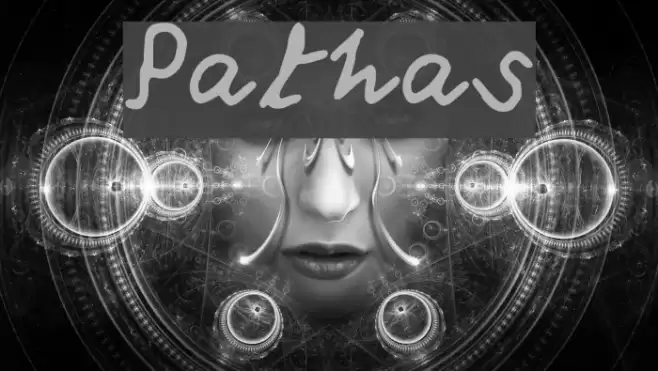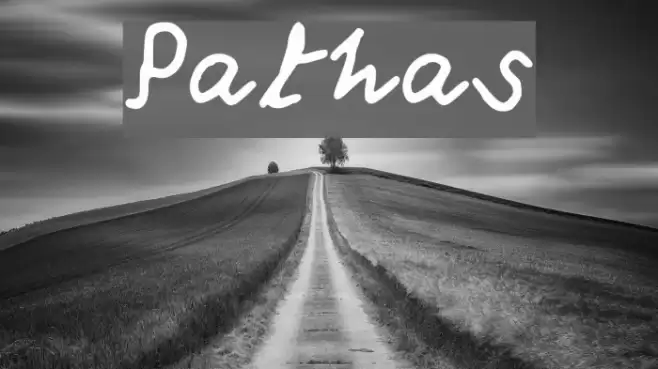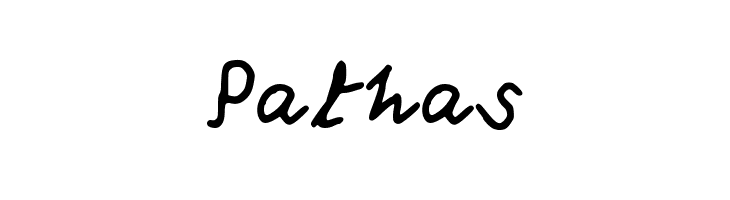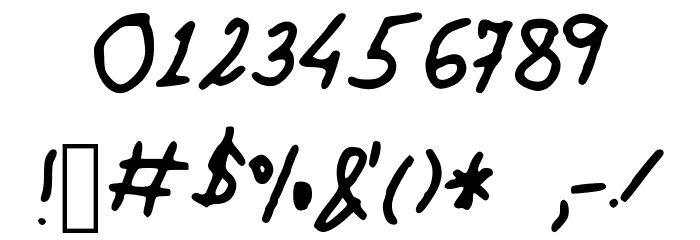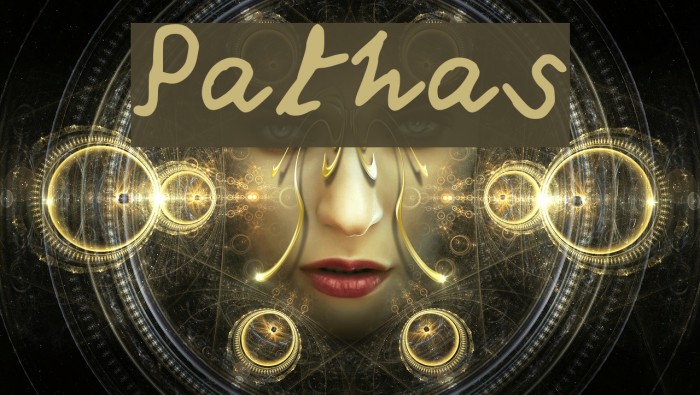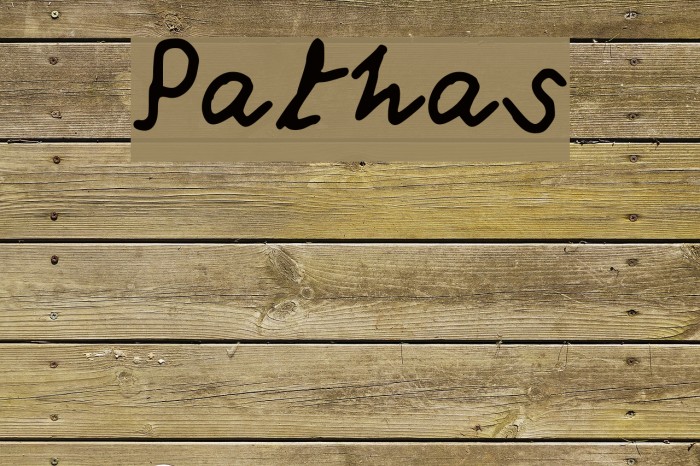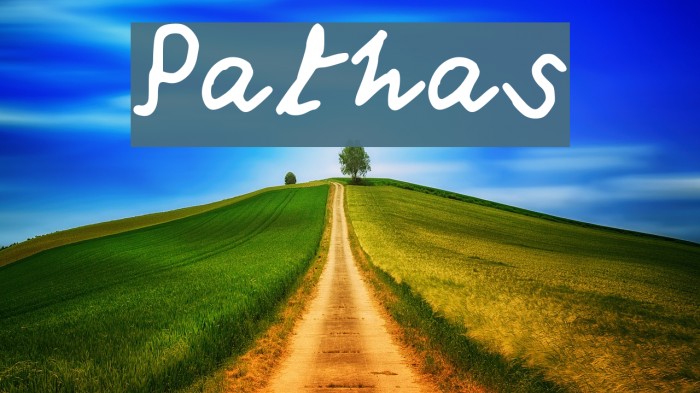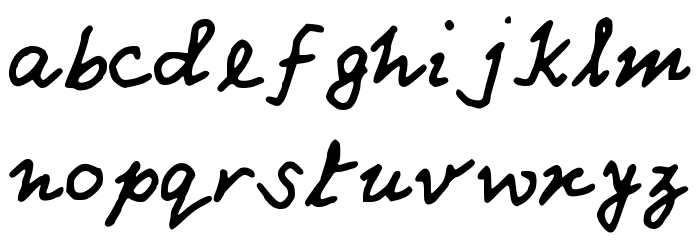
Pathas Font
Pathas Description
This font features a playful and casual handwritten style, characterized by its fluid and slightly irregular strokes. The uppercase letters are bold and prominent, while the lowercase letters maintain a consistent flow, adding to the font's informal charm. The numbers are clear and legible, matching the overall style of the alphabet. Special characters are creatively integrated, maintaining the font's whimsical nature. The strokes vary slightly in thickness, giving it a dynamic and lively appearance. This font is perfect for projects that require a personal touch or a relaxed, friendly vibe.
A playful, handwritten font with fluid strokes and a casual style from Handwritten fonts.
- Proposed Projects: Ideal for greeting cards, invitations, personal branding, and creative projects that require a friendly and approachable feel.
- Overall Style: Casual, Playful
- Use Case: Logos, Invitations, Greeting Cards